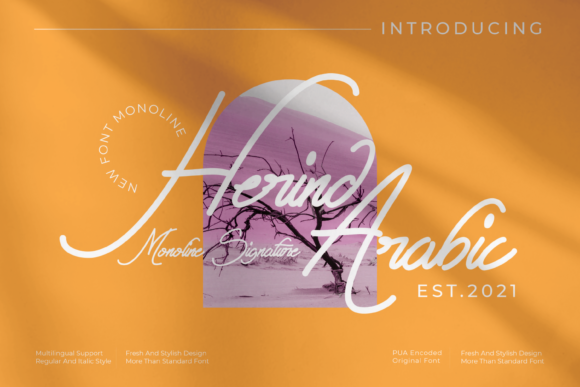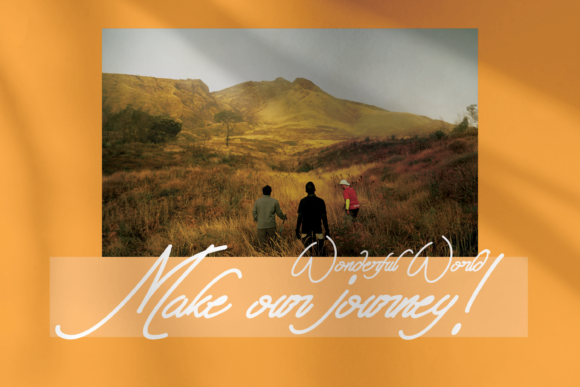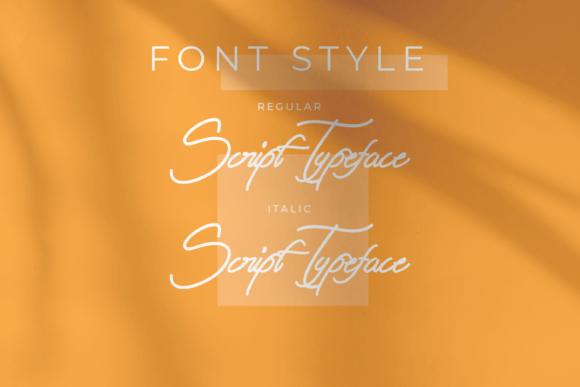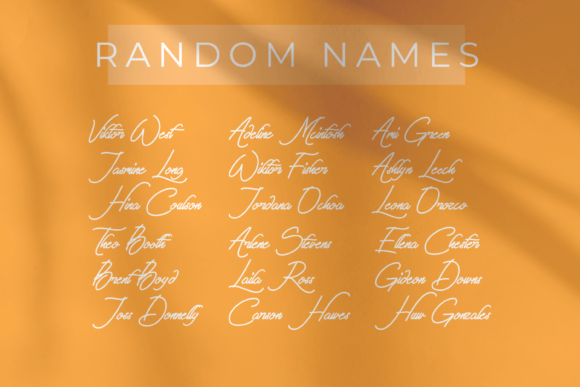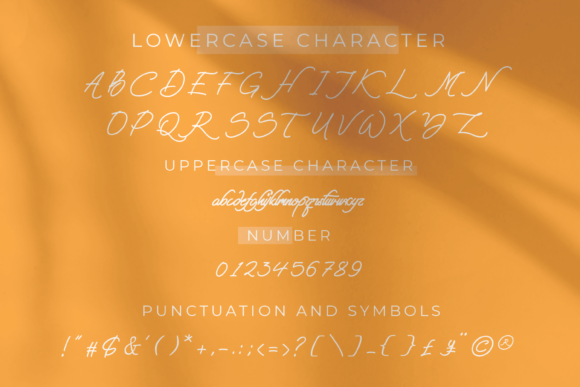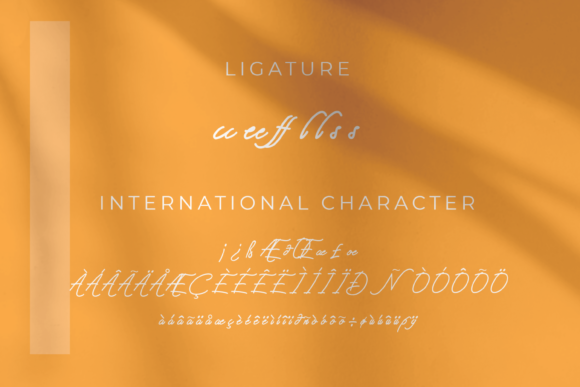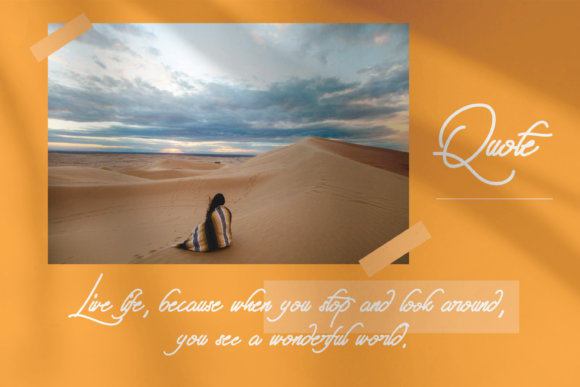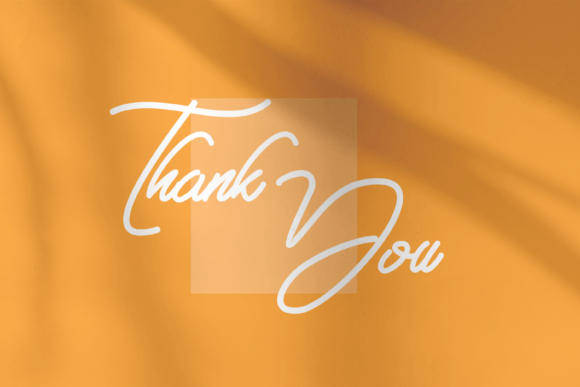
Herind Arabic Font
About Herind Arabic Font
Herind Arabic is a superb handwritten font, beautifully designed with a touch of elegance and charm. It is perfect for any projects that need to look exquisite and authentic!